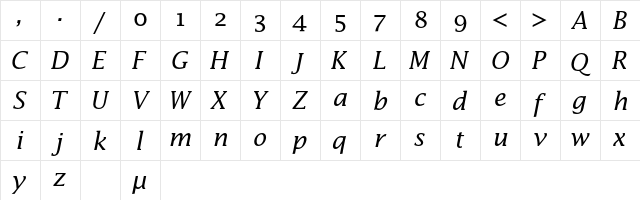
Lucida Math Std Italic
| Designer | Kris Holmes, Charles Bigelow |
Design Context for Lucida Math Std Typeface
Lucida Math Std takes a measured approach to typography — its balanced proportions and neutral character make it a reliable workhorse for both digital and print work. The dynamic lean of this cut emphasises speed and emphasis in any layout.
Pro Tip: Try Lucida Math Std for annotation and caption copy alongside an upright companion — the contrast in angle creates a dynamic but ordered typographic system.